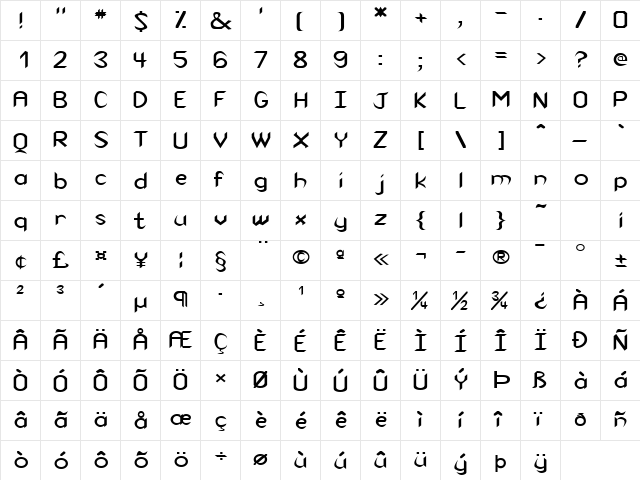
Spike-Extended Normal
Design Context for Spike-Extended Typeface
Spike-Extended offers clean, dependable letterforms without strong stylistic allegiance, making it a practical choice for designers who need flexibility.
Pro Tip: Use Spike-Extended in both headline and body roles to test its range before committing to a single application.